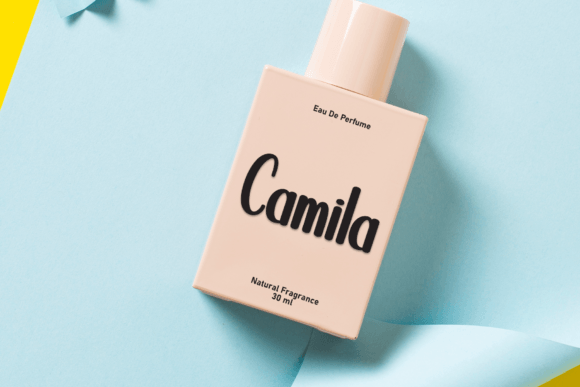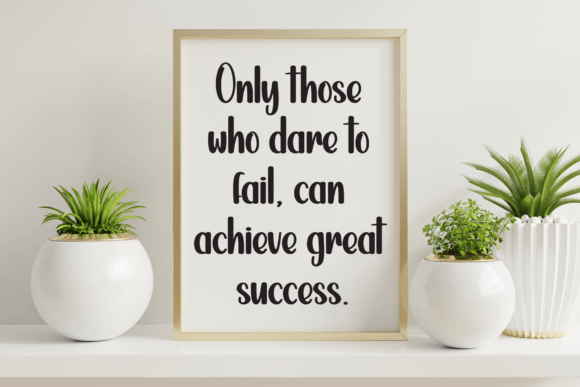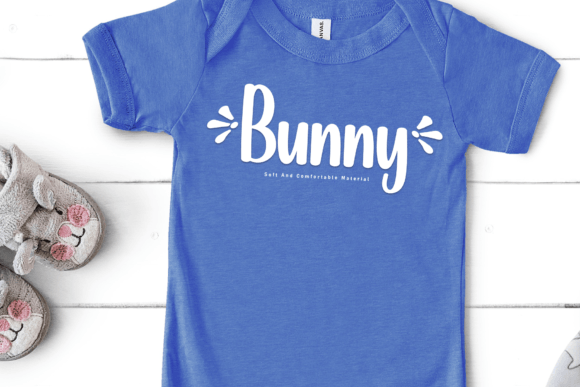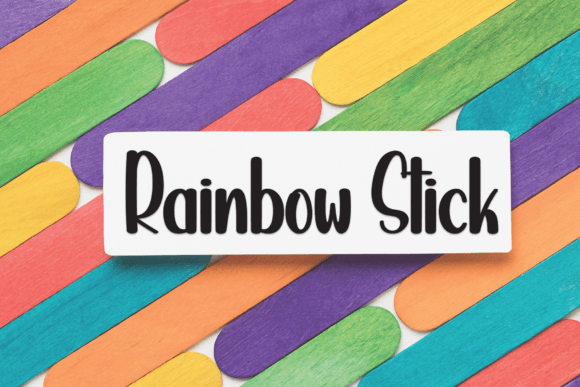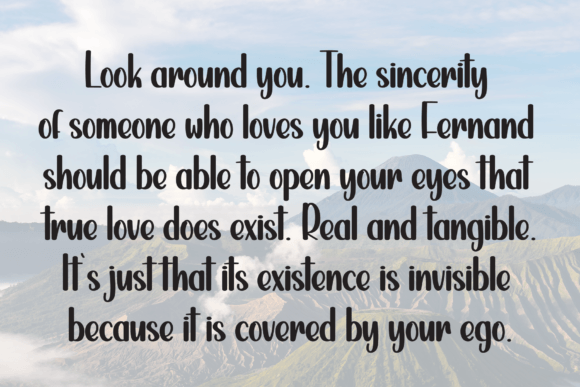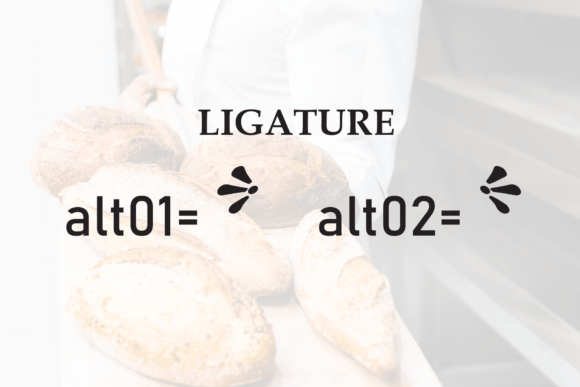
Introducing Chubby Bakery Font: The Sweetest Addition to Your Design Collection
Are you tired of using the same old fonts in your designs? Look no further! Chubby Bakery Font is here to add a touch of sweetness and friendliness to your creations. This handwritten font is perfect for designers and crafters who want to add a personal and unique touch to their work.
The Charm of Chubby Bakery Font
Chubby Bakery Font is a sweet and friendly handwritten font that is sure to capture the hearts of your audience. Its natural and unique style makes it incredibly fitting to a large pool of designs, from baking and cooking to lifestyle and wellness. The font’s charm lies in its imperfections, giving it a warm and cozy feel that’s perfect for creating inviting and engaging designs.
The best part about Chubby Bakery Font is that it’s incredibly versatile. The only limit is your imagination! You can use it to create:
- Baking and cooking blog posts and social media graphics
- Lifestyle and wellness branding and advertising materials
- Handmade and craft product labels and packaging
- Wedding and event invitations and decorations
- And so much more!
Why Choose Chubby Bakery Font?
So, why choose Chubby Bakery Font over other fonts? Here are just a few reasons:
- Unique and eye-catching: Chubby Bakery Font is a one-of-a-kind font that’s sure to grab attention and make your designs stand out.
- Easy to read: Despite its playful and handwritten style, Chubby Bakery Font is incredibly easy to read, making it perfect for body text and headlines.
- Customizable: Chubby Bakery Font can be customized to fit your brand’s style and aesthetic, making it perfect for branding and advertising materials.
Tips for Using Chubby Bakery Font
Here are a few tips for getting the most out of Chubby Bakery Font:
- Pair it with bold fonts: Chubby Bakery Font pairs perfectly with bold and modern fonts, creating a beautiful contrast that’s sure to make your designs pop.
- Use it for headings and titles: Chubby Bakery Font is perfect for headings and titles, adding a touch of personality and whimsy to your designs.
- Experiment with colors: Chubby Bakery Font looks great in a variety of colors, from bright and bold to soft and pastel.
Chubby Bakery Font is a sweet and friendly handwritten font that’s sure to add a touch of personality to your designs. Its natural and unique style makes it incredibly fitting to a large pool of designs, and its versatility means that the only limit is your imagination! Whether you’re a designer, crafter, or simply someone who loves to create, Chubby Bakery Font is the perfect addition to your design collection.